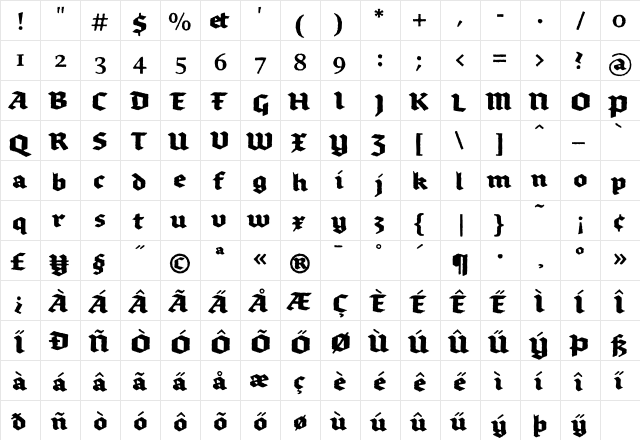
Brokenscript-BoldRough Regular
Design Context for Brokenscript-BoldRough Typeface
Brokenscript-BoldRough embraces imperfection — its rough, textured character adds raw authenticity to designs that want to feel lived-in and unconventional.
Suited to punk-influenced zines, underground music branding, streetwear, and raw, anti-corporate design.
Pro Tip: Pair Brokenscript-BoldRough with intentionally raw or lo-fi design elements. Fighting against it with overly polished surroundings will undermine its personality.